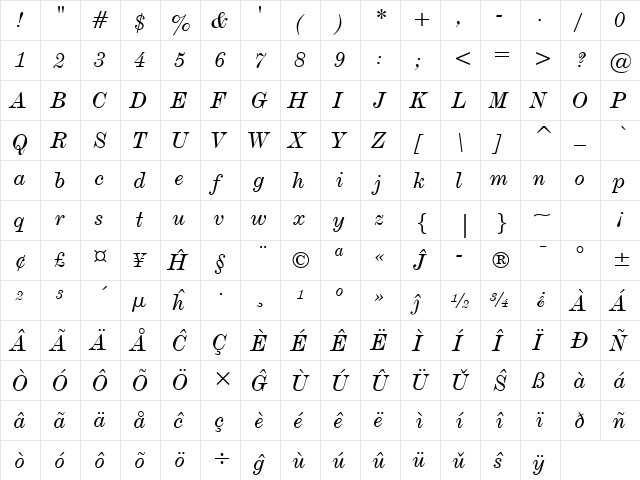
DeVinne Txt BT Eo Italic Font Preview
DeVinne Txt BT Eo Italic
Design Context for DeVinne Txt BT Eo Typeface
DeVinne Txt BT Eo takes a measured approach to typography — its balanced proportions and neutral character make it a reliable workhorse for both digital and print work. The dynamic lean of this cut emphasises speed and emphasis in any layout.